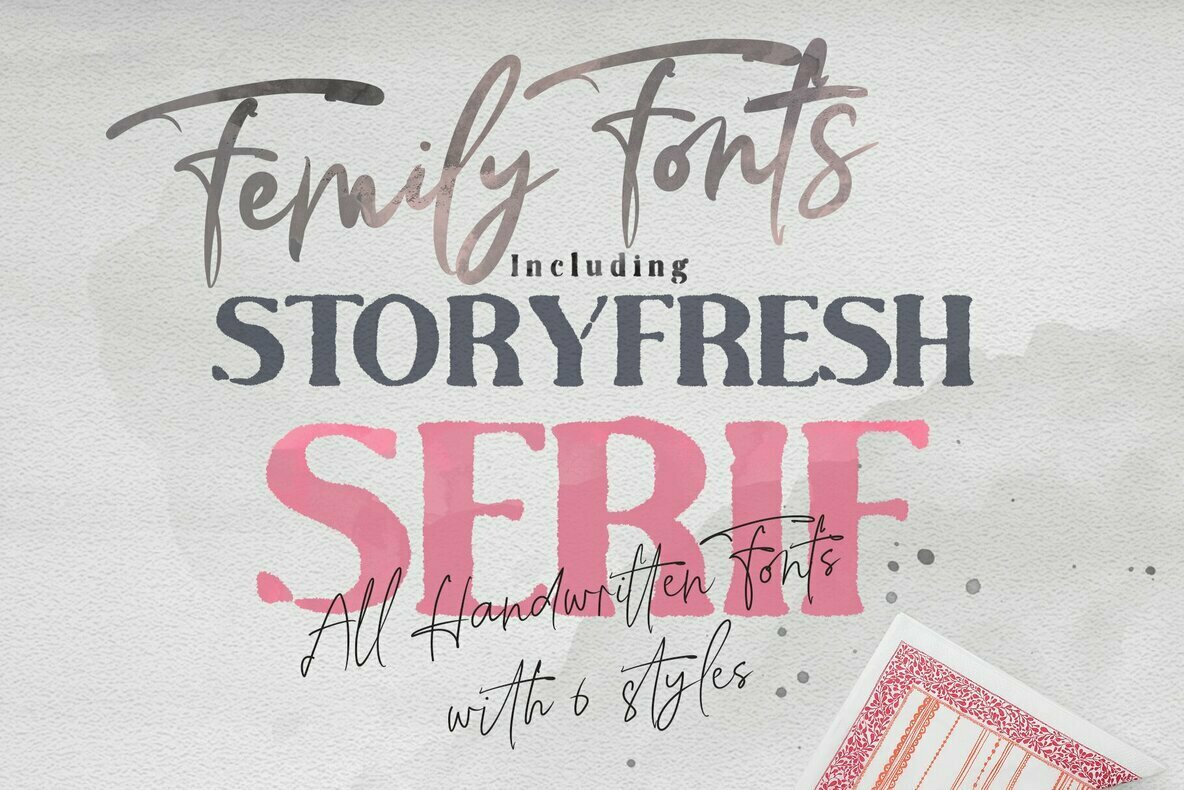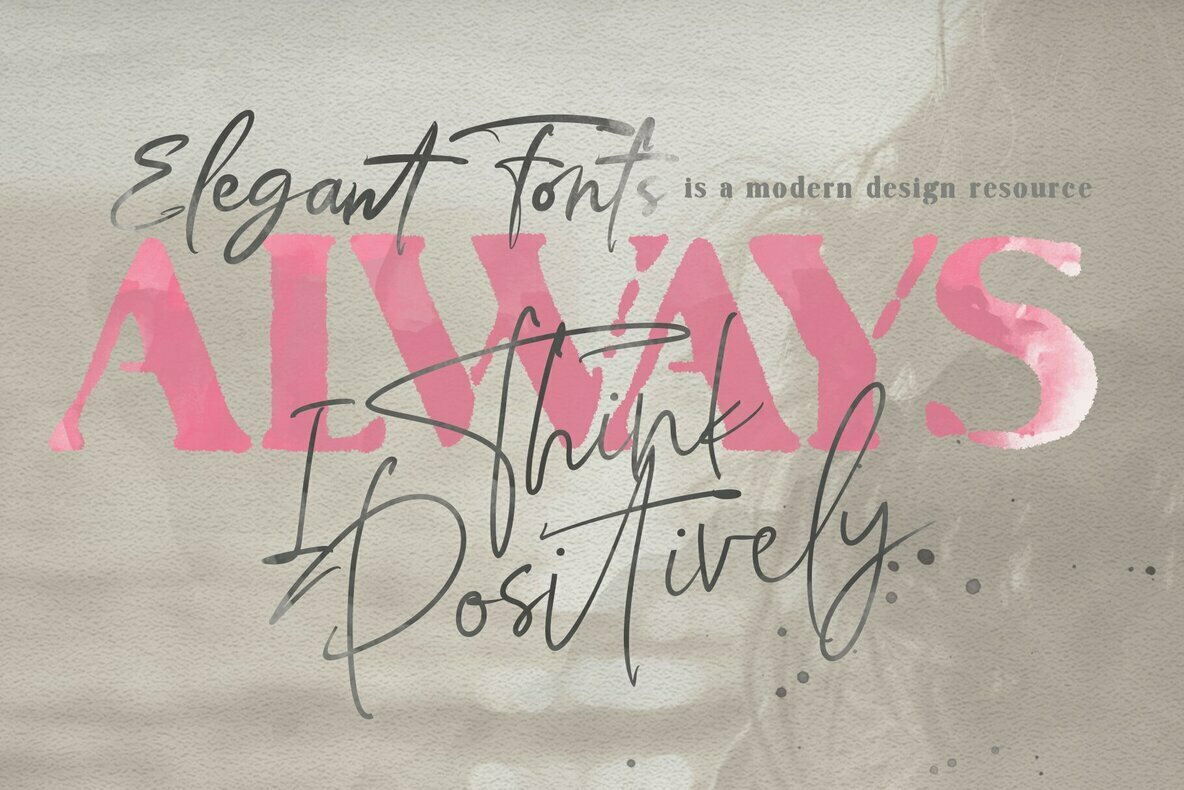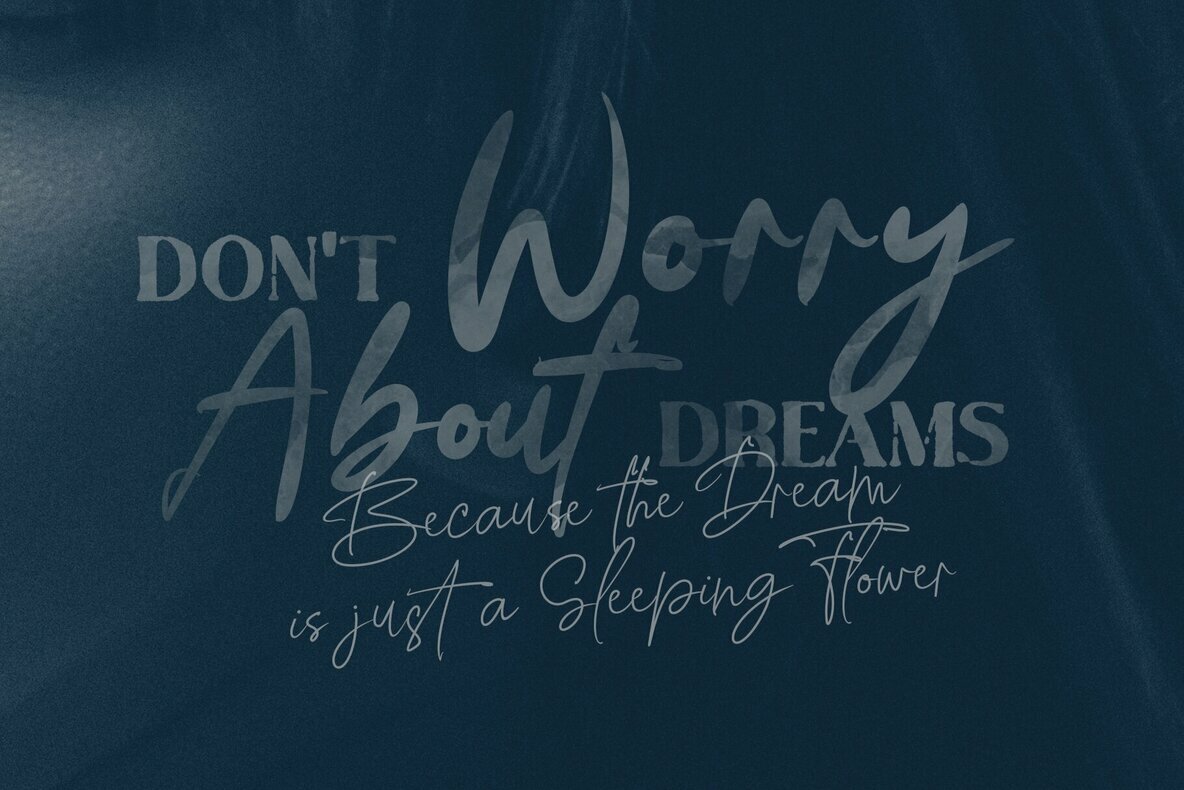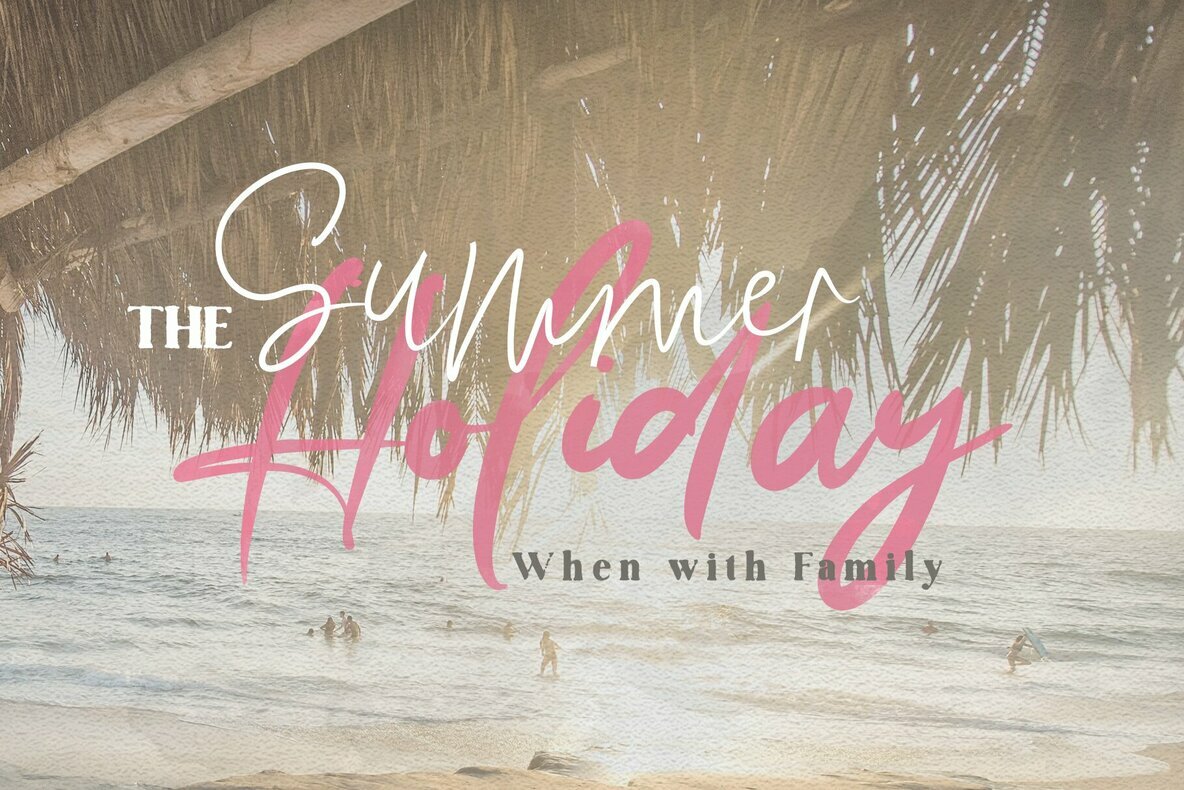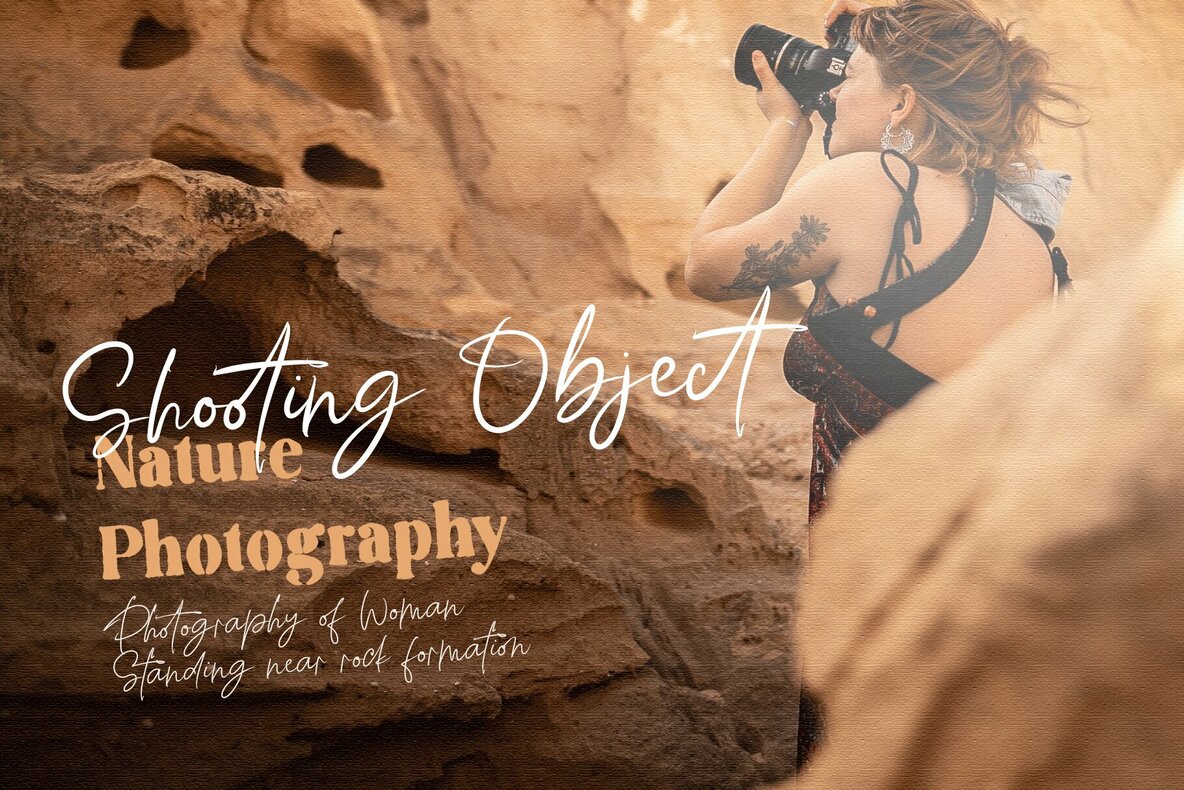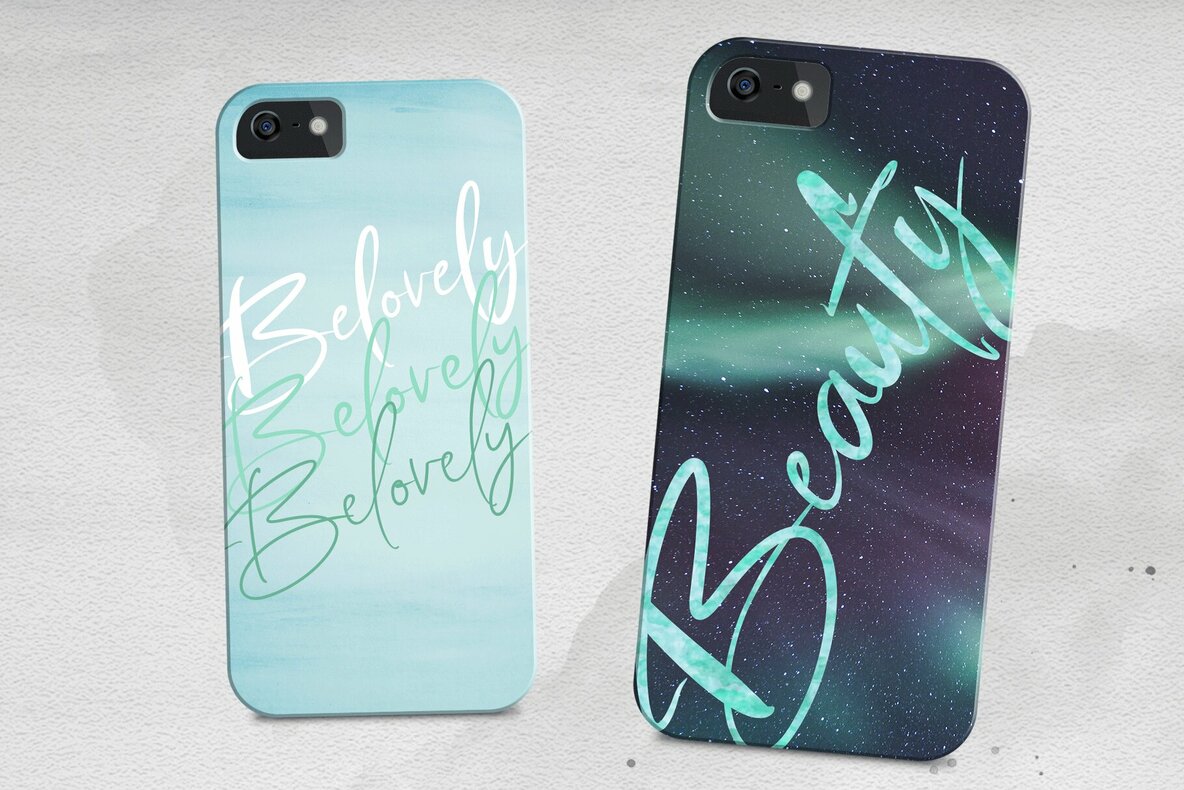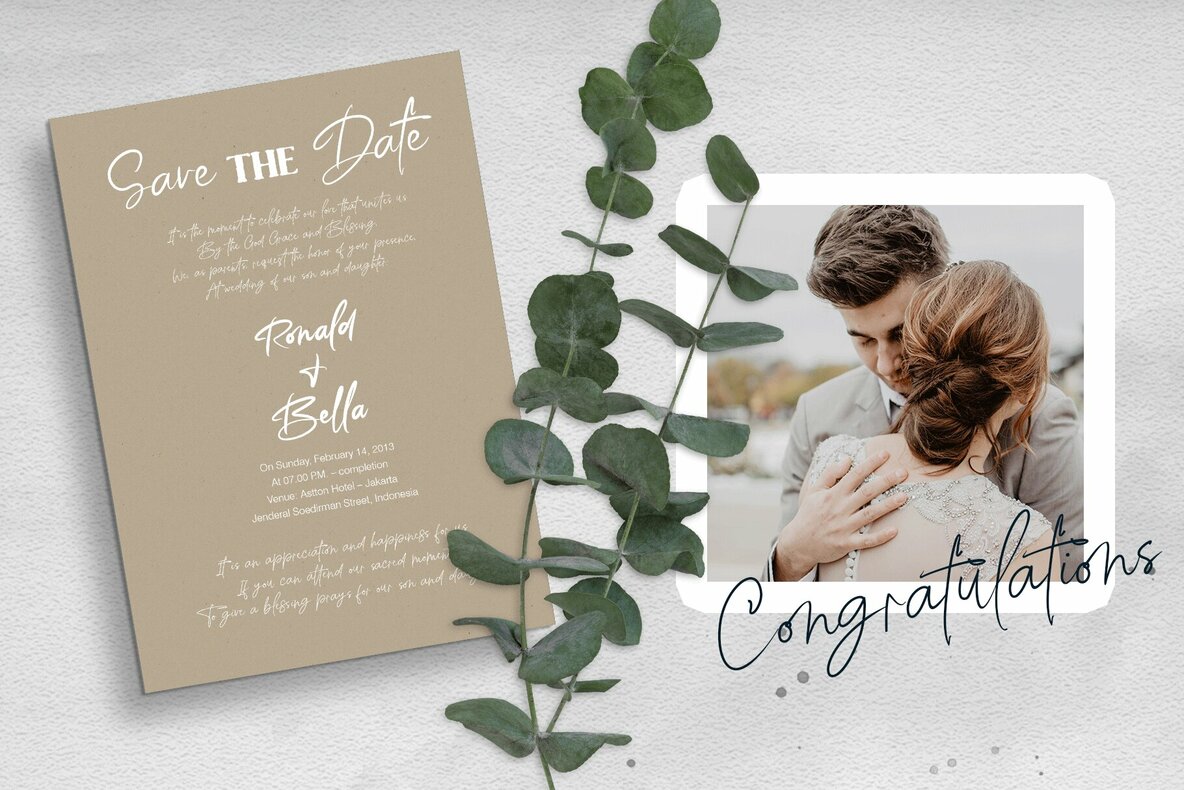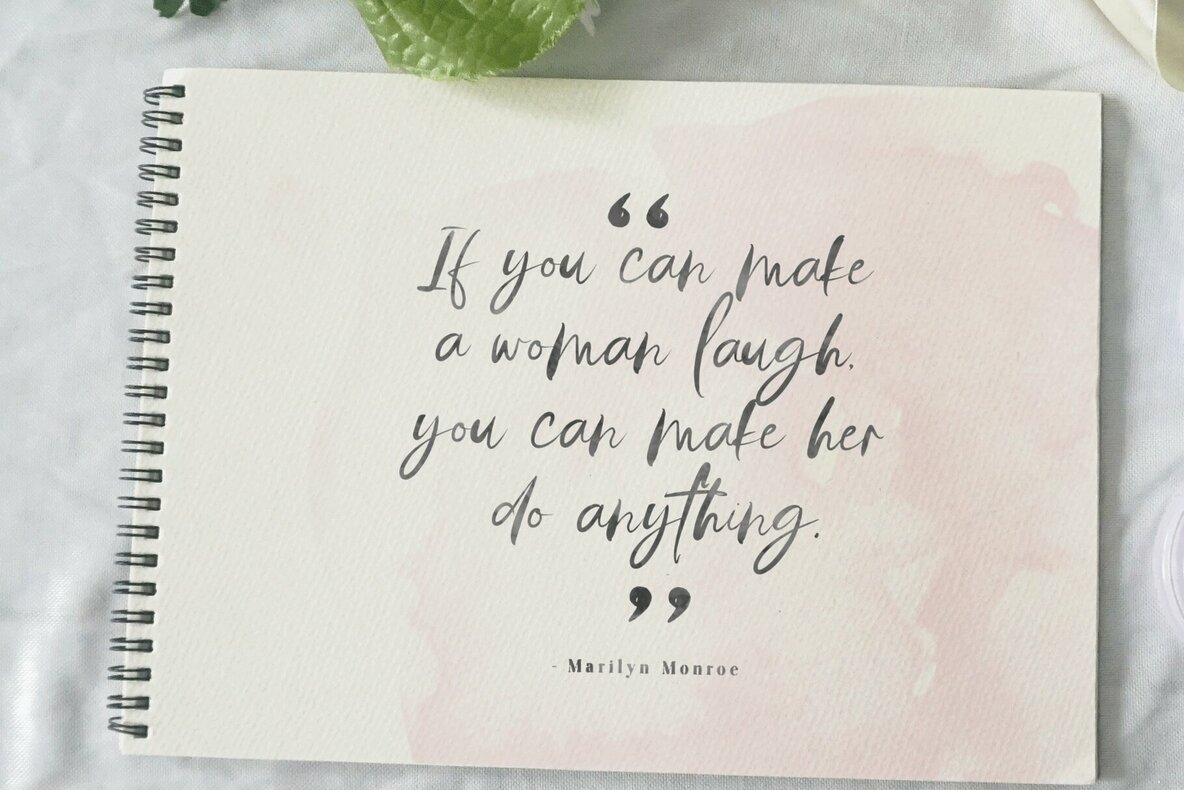
Story Fresh Font
Story Fresh invites you into a world of creative expression with its family of script fonts. Purely handmade, this collection offers a unique monoline style across five distinct weights: brush, bold, medium, normal, and light. A complementary rough-style serif font completes the set, making it ideal for elevating invitations, signatures, blogs, social media, business cards, and branding projects. Features:Story Fresh: A Versatile Script with Handmade Appeal